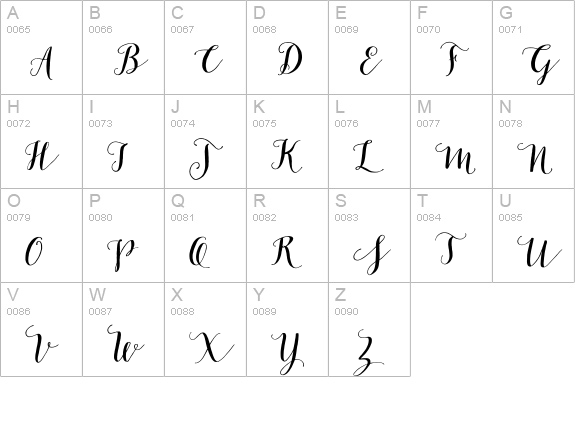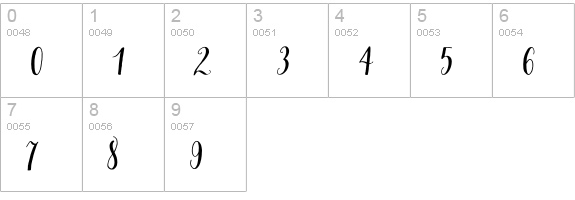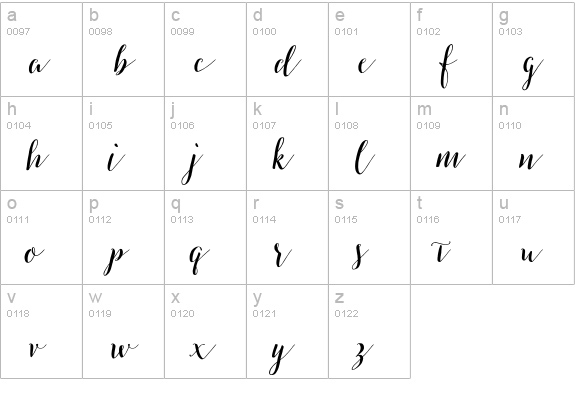
Salt & Spices Pro Bold is a strong, high-contrast variant in the Salt typeface family \xE2\x80\x94 well suited to headlines, attention-grabbing titles, and strong calls-to-action.
Salt & Spices Pro Bold is a modern and stylish font that exudes sophistication and elegance. With its bold and striking appearance, this font is perfect for creating eye-catching designs that demand attention. The combination of clean lines and intricate details makes Salt & Spices Pro Bold a versatile choice for a wide range of projects, from branding to packaging to digital media. What sets Salt & Spices Pro Bold apart is that it is available for free download at FontsMarket.com. This means that you can easily access this high-quality font without any cost, making it a valuable addition to your design toolkit. Whether you are a professional graphic designer or a hobbyist looking to elevate your projects, Salt & Spices Pro Bold is a must-have font that will enhance your creative endeavors. Download it today and see the difference it can make in your designs.